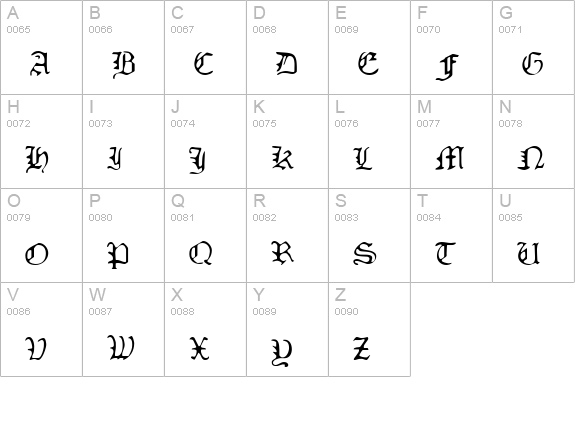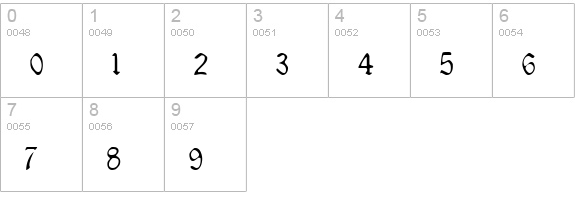
Deadly Breakfast Font Details
Introducing Deadly Breakfast font, a bold and striking typeface that will add a touch of danger and excitement to your design projects. This font is perfect for creating eye-catching headlines, posters, and branding materials that demand attention. With its sharp edges and edgy appeal, Deadly Breakfast is sure to make a powerful statement. What's even better is that Deadly Breakfast font is available for free download at FontsMarket.com. Yes, you read that right - this stunning font can be yours at no cost, making it accessible to designers of all levels. So why wait? Add Deadly Breakfast to your font collection today and unleash its deadly charm in your next project.